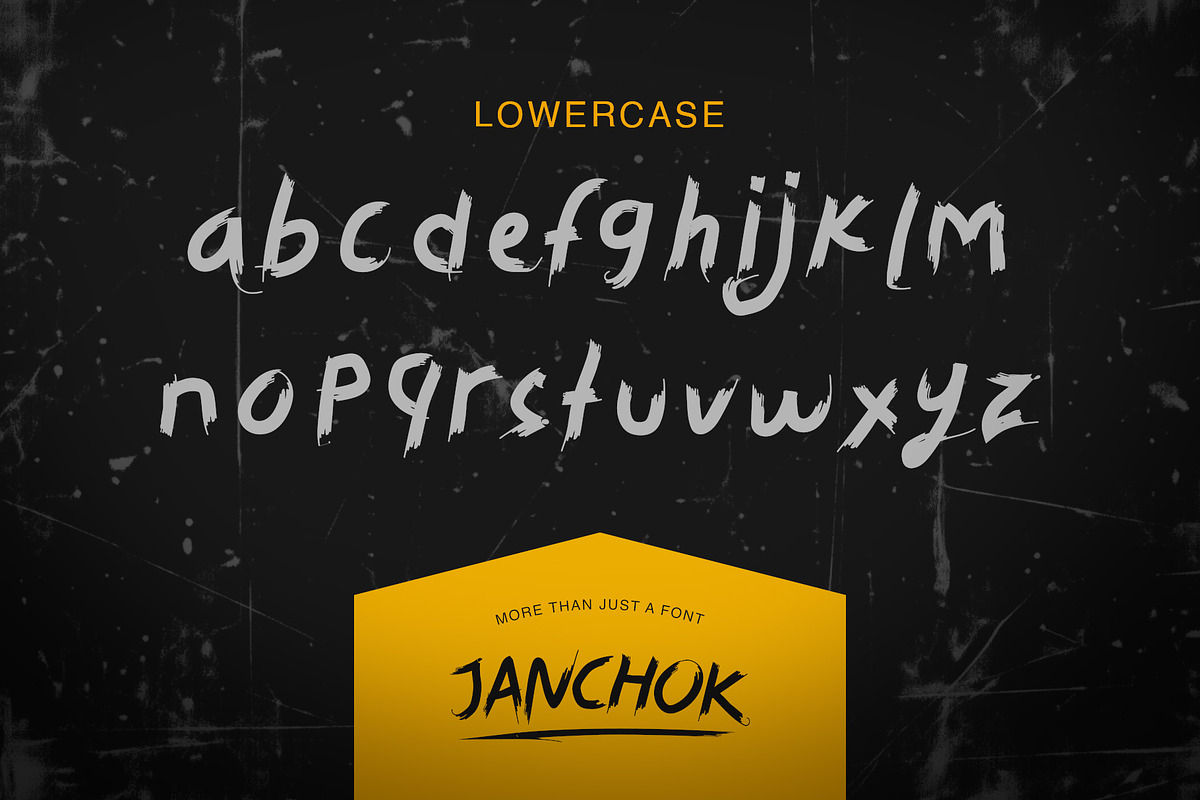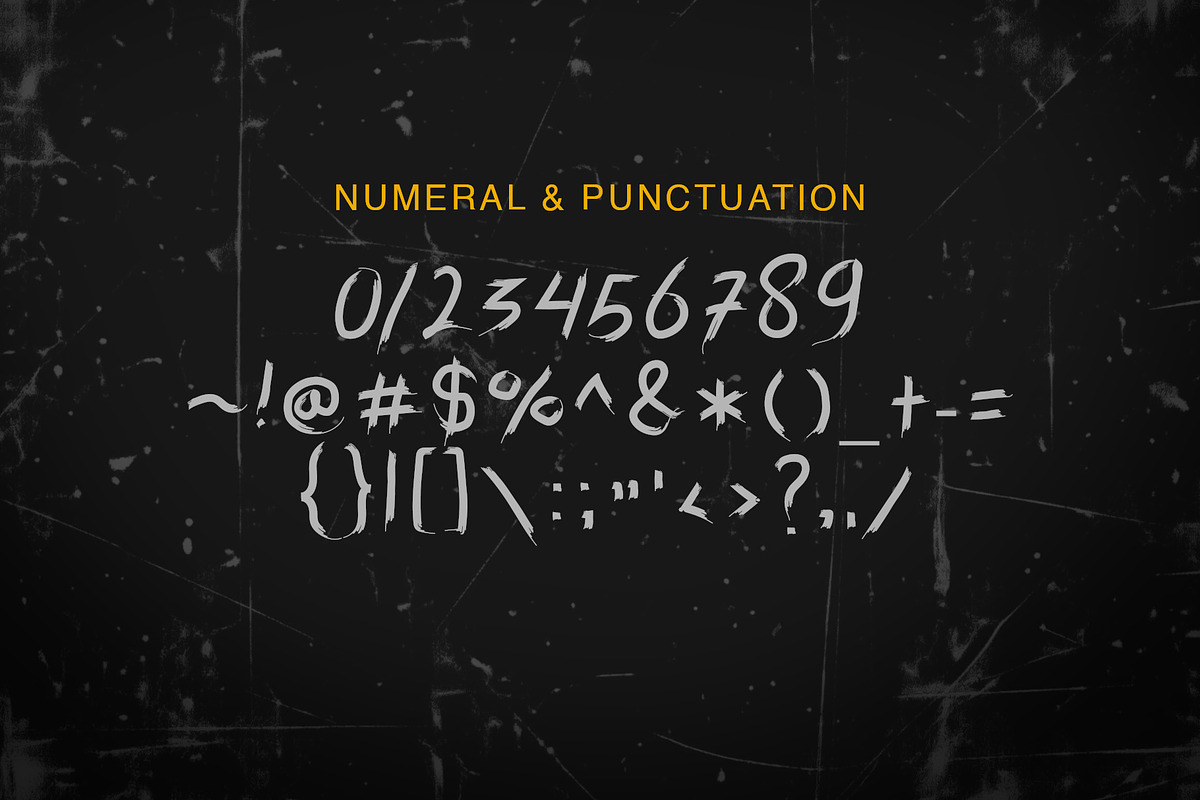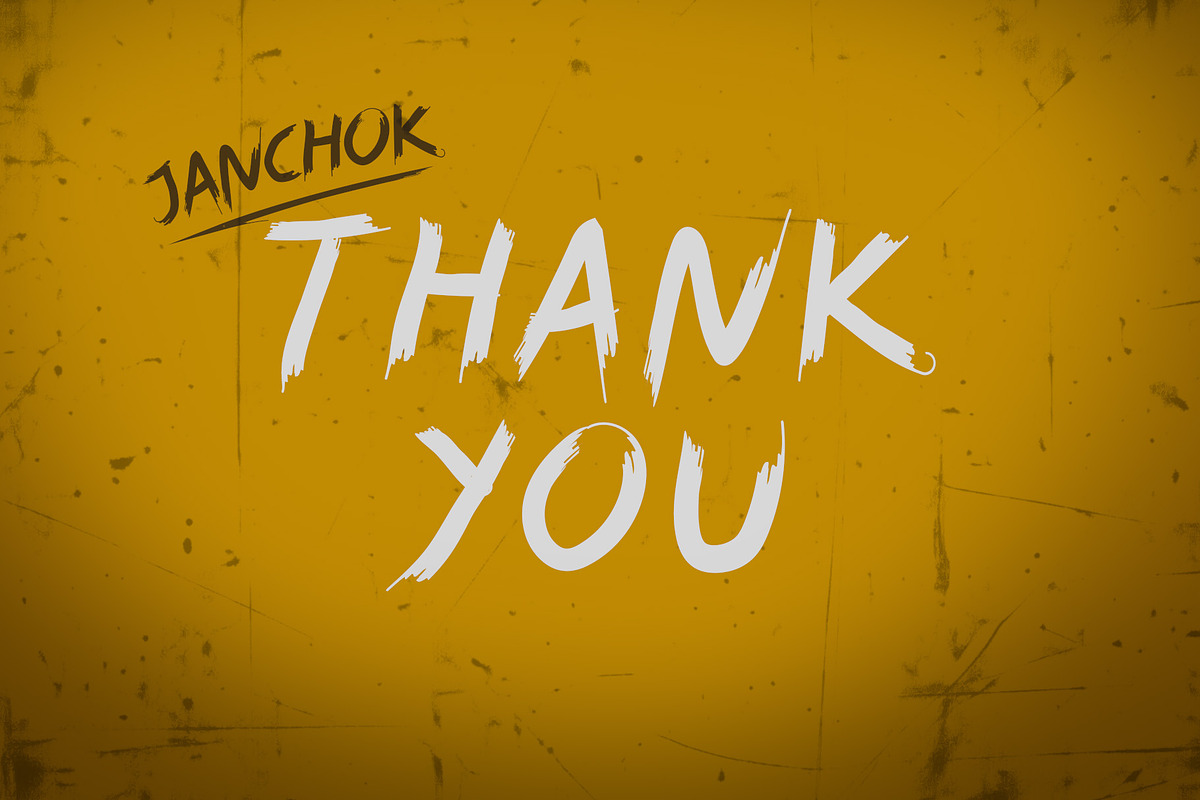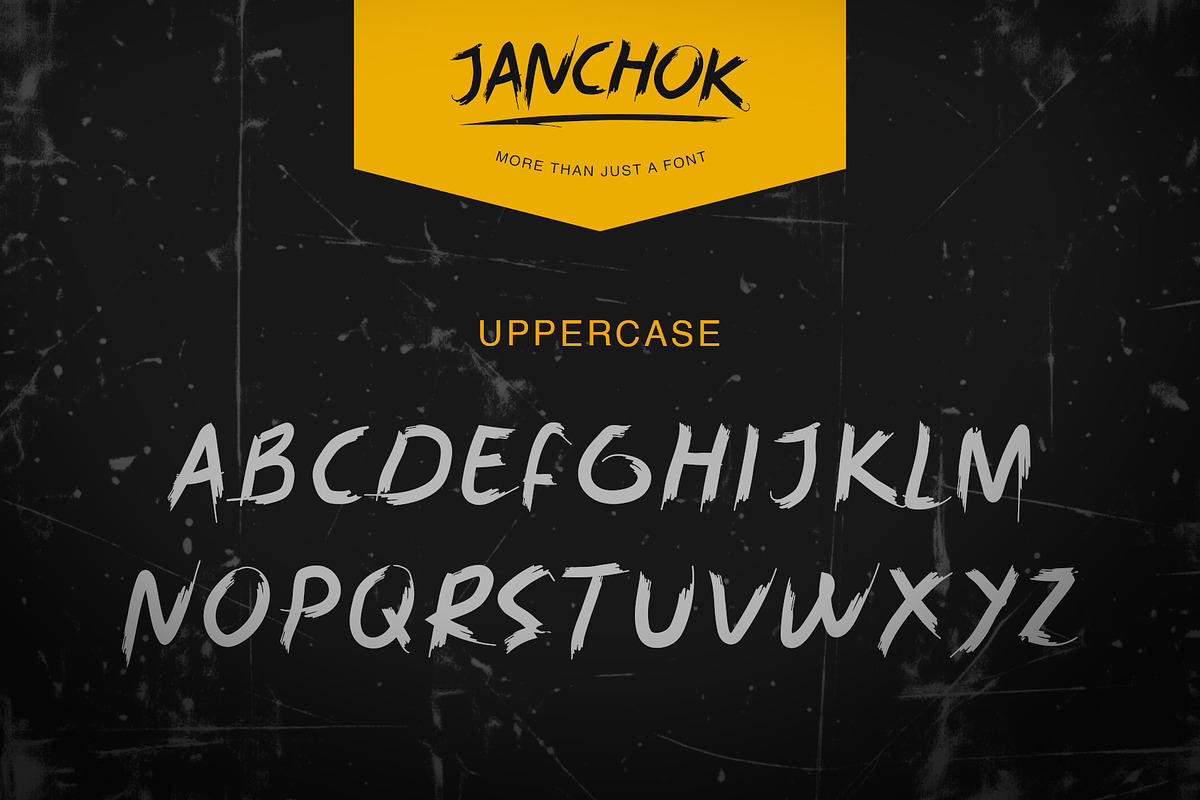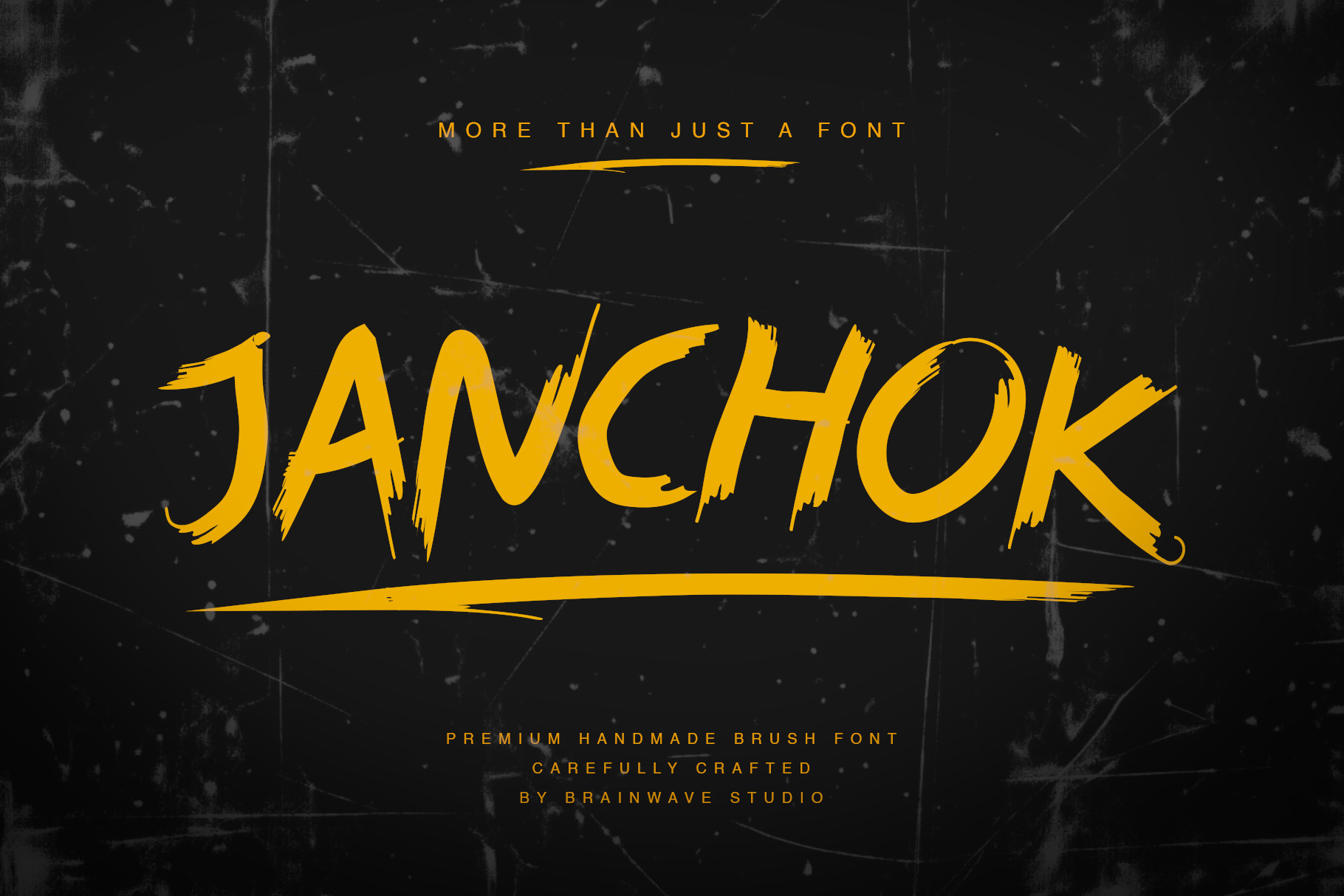
JANCHOK – Premium Brush Font
JANCHOK – Premium Handmade Brush Font
More Than Just a Font.
Introducing JANCHOK, a powerful handmade brush font crafted by Brainwave Studio. Designed with bold brush strokes, raw energy, and expressive hand-painted details, JANCHOK brings a distinctive artistic character to your creative projects.
Inspired by urban aesthetics, handcrafted lettering, and dynamic brush typography, JANCHOK is perfect for designers who want to create bold visuals with personality and impact.
Its irregular edges, dramatic shapes, and authentic handmade appearance make it an excellent choice for branding, streetwear, posters, album artwork, merchandise, packaging, and more.
WHAT MAKES JACKHOK SPECIAL?
Authentic handmade brush lettering style
Bold and expressive visual character
Dynamic strokes with an artistic, handcrafted feel
Strong presence for headlines and display typography
Suitable for modern, urban, vintage, and creative design concepts
Created for designers, artists, and creative entrepreneurs
PERFECT FOR
✔ Logo Design & Branding
✔ Streetwear & Apparel
✔ Poster & Flyer Design
✔ Album Covers & Music Artwork
✔ Merchandise & T-Shirt Design
✔ Packaging & Product Labels
✔ Social Media Graphics
✔ Advertising & Promotional Materials
✔ Quotes & Typography Artwork
✔ Creative Editorial Design
Whether you're creating a powerful brand identity, an eye-catching poster, or a unique apparel collection, JACKHOK helps you bring your ideas to life with bold handmade energy.